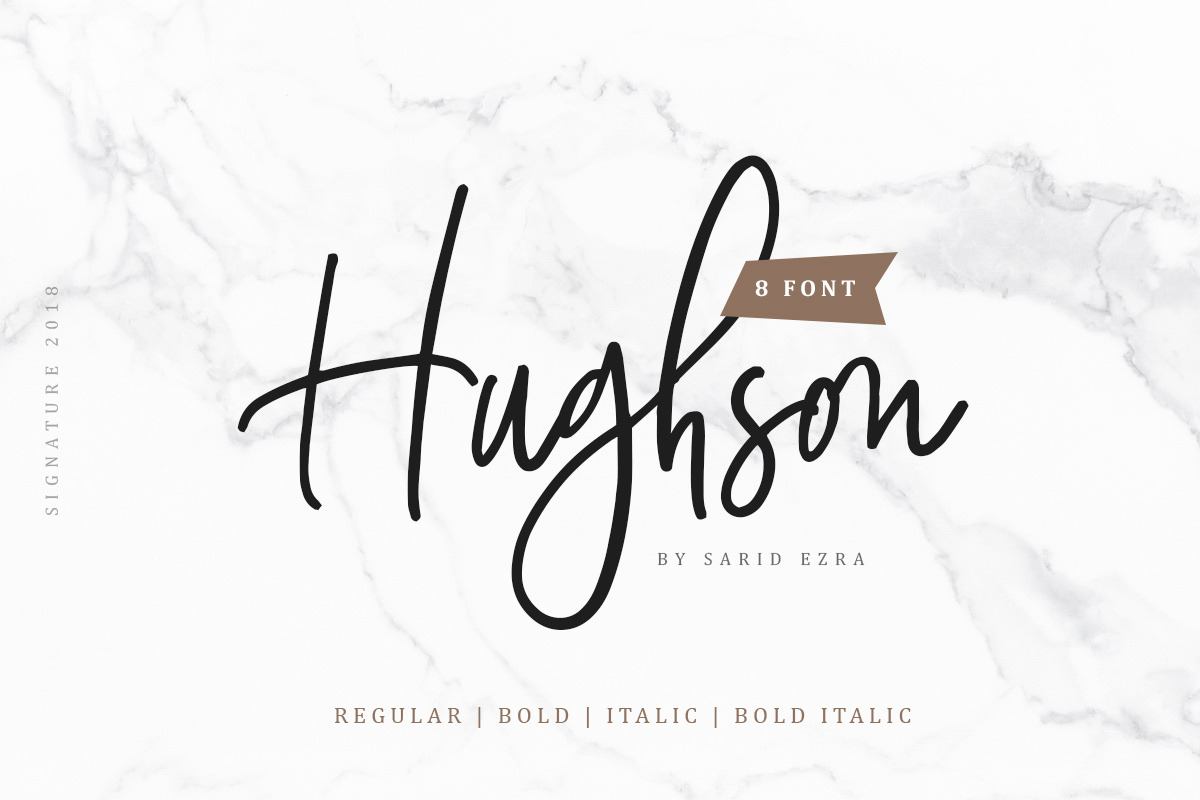
Hughson Script (8 Fonts) Free Download is an elegant and versatile script font family that includes 8 different variations, perfect for adding a personalized and sophisticated touch to any design. Whether you need a more classic, flowing style or a modern, bolder touch, this bundle offers various weights and styles to suit your project needs.
With its clean, flowing lines and beautiful cursive feel, Hughson Script is ideal for wedding invitations, logos, branding, greeting cards, and any design requiring an elegant handwritten touch. The variety in this font family ensures that you can find the perfect fit for both formal and casual designs.
Elevate your typography with the graceful and versatile styles of Hughson Script! ✨